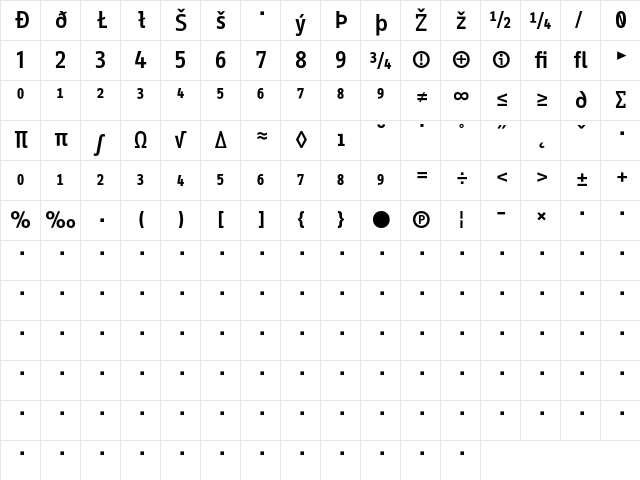
InfoOffice BoldExpert
Design Context for InfoOffice Typeface
InfoOffice offers clean, dependable letterforms without strong stylistic allegiance, making it a practical choice for designers who need flexibility. The heavy weight commands attention and anchors typographic hierarchies.